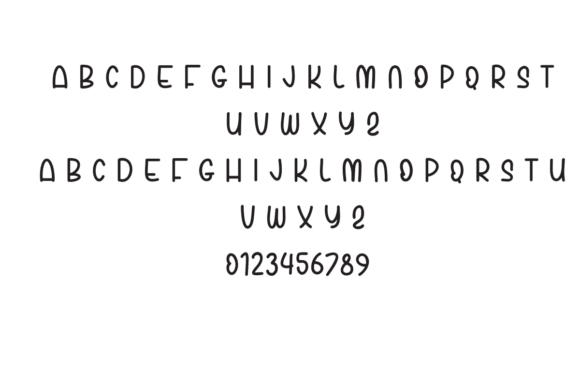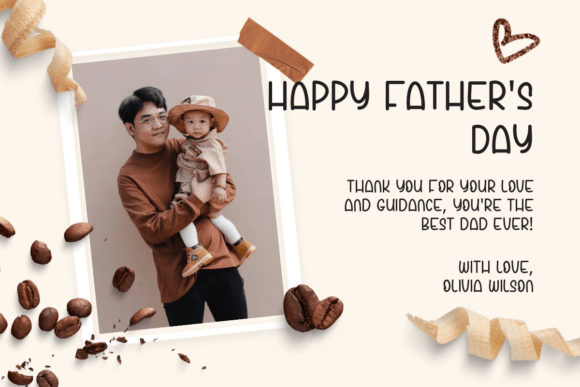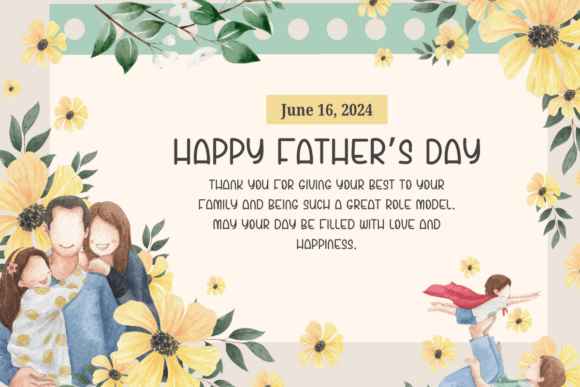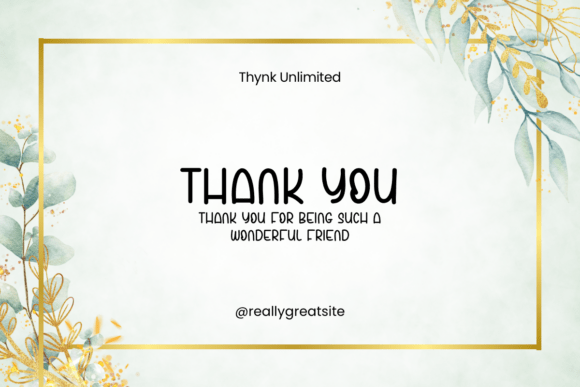
Creating Heartfelt Moments with Father Day Font
As a designer, have you ever found yourself stuck on a project, searching for the perfect font to convey the emotions and love behind a special moment? I recall a particular instance where I was designing a Father’s Day card for my little one, and I wanted the font to exude warmth and simplicity. That’s when I stumbled upon the Father Day Font – a handwritten font that instantly captured the essence of the occasion.
This beautiful font is designed to make family-themed designs, Father’s Day cards, and sentimental gifts truly special. Its rounded letters and casual style create a sense of approachability and warmth, making it perfect for designers looking to create endearing and heartfelt projects. Whether you’re working on a personal or professional project, the Father Day Font is a valuable addition to your design toolkit.
Father’s Day Font Key Features
- Unique Characteristics: The font features a playful, handwritten style with a mix of uppercase and lowercase letters, making it perfect for adding a personal touch to designs and messages.
Review: Father Day Font
Overall, I think the Father Day Font has some great qualities, but it also has some limitations that prevent it from being a top-tier font. ✨ Let’s start with the good stuff:
- Unique and creative design: The font has a unique and playful feel to it, which can be perfect for adding some personality to Father’s Day-related designs.
- Wide range of styles: The font comes in various styles, from casual to formal, which makes it versatile for different design needs.
- Easy to read: Despite its unique design, the font is still easy to read, which is a must for any font.
- Limited font weights: The font only comes in a few weights, which may not be enough for designers who need more options.
- Not ideal for body text: Due to its playful design, the font may not be the best choice for large blocks of body text, where readability is crucial.
Overall, I think the Father Day Font is a solid choice for designers who need a unique and playful font for specific design projects. However, it may not be the best fit for all design needs. With some careful selection and styling, it can add a nice touch to Father’s Day-related designs.
Tips: Use “Father Day Font” to create eye-catching headings and titles. Experiment with different font sizes and colors to add visual interest.
Tips: Use “Father Day Font” to create custom graphics and illustrations. Experiment with layer blending modes and effects to add depth and interest.
Tips: Use “Father Day Font” to create engaging headings and titles. Experiment with different font sizes and colors to add visual interest.
“Father Day Font” is perfect for creating:
- Happy Father’s Day cards and gifts.
- Custom graphics and illustrations for social media and marketing materials.
- Engaging presentations and documents.